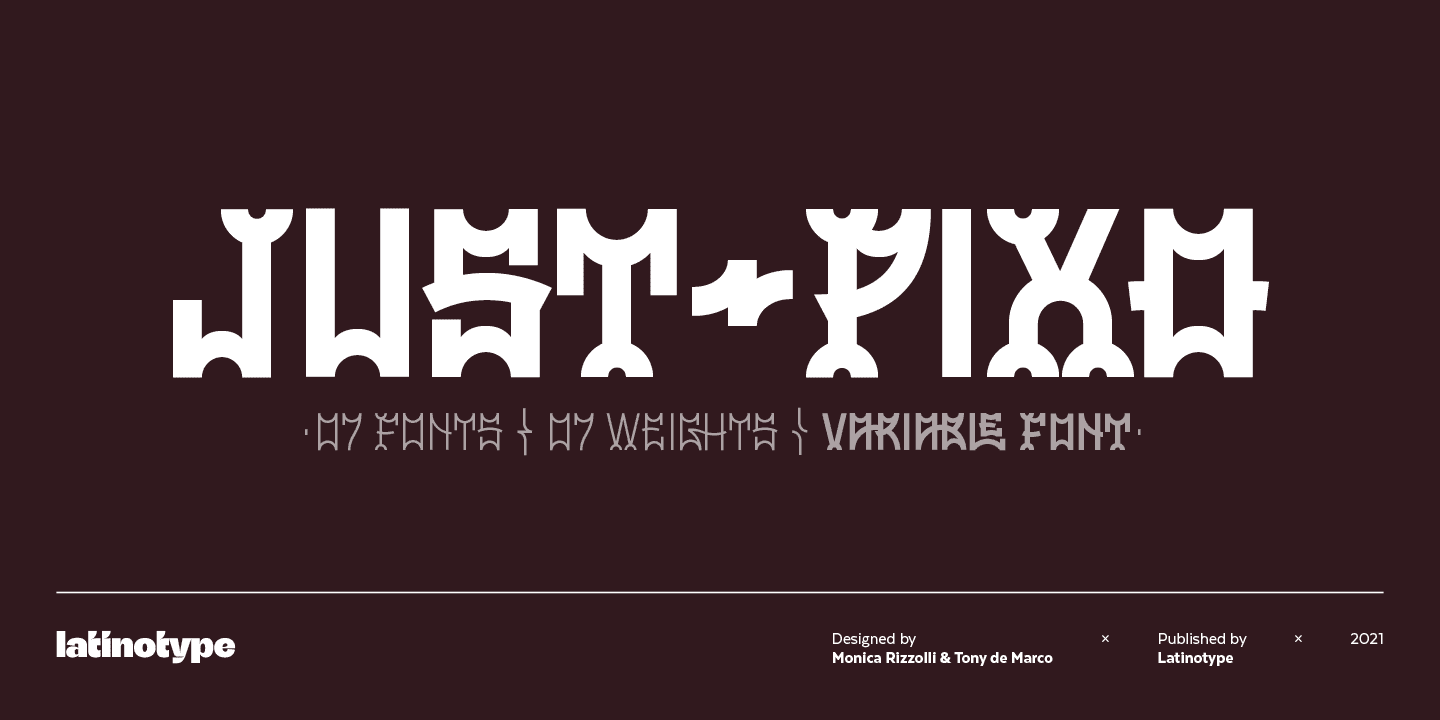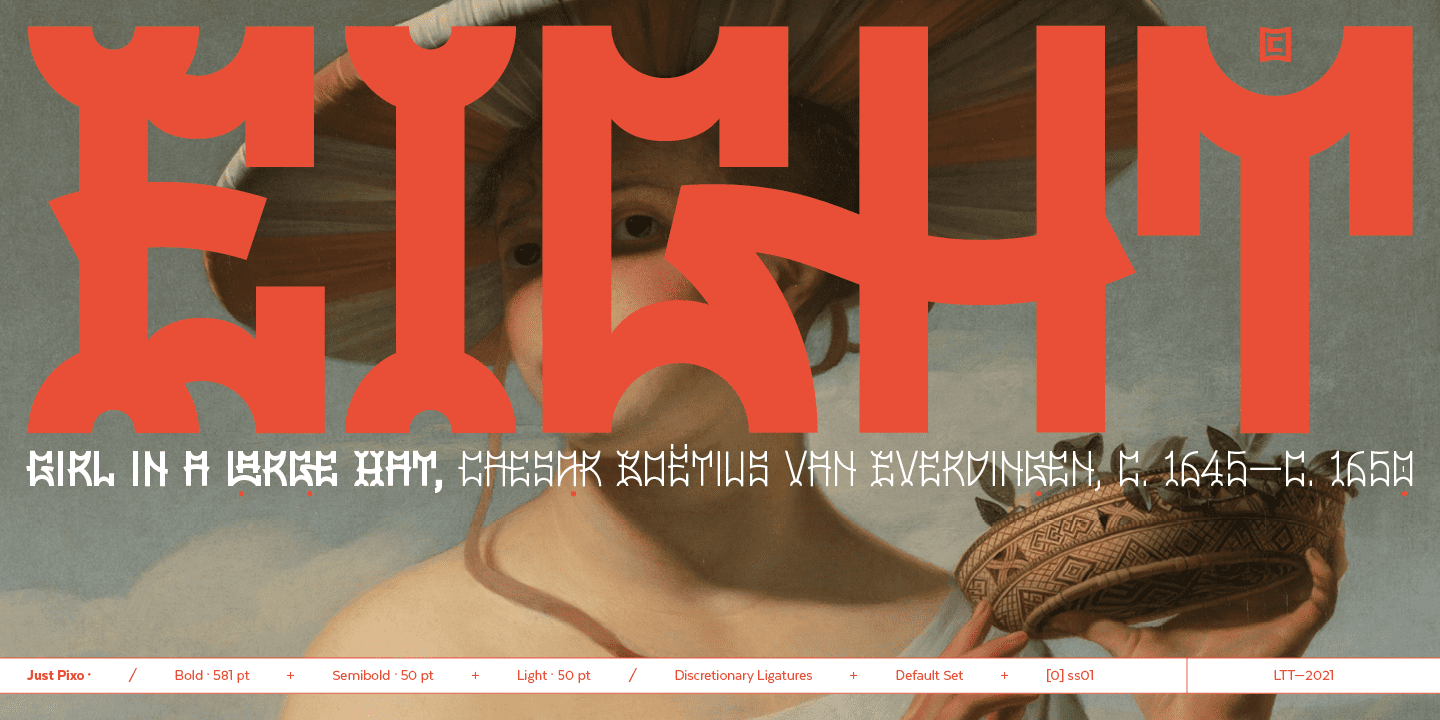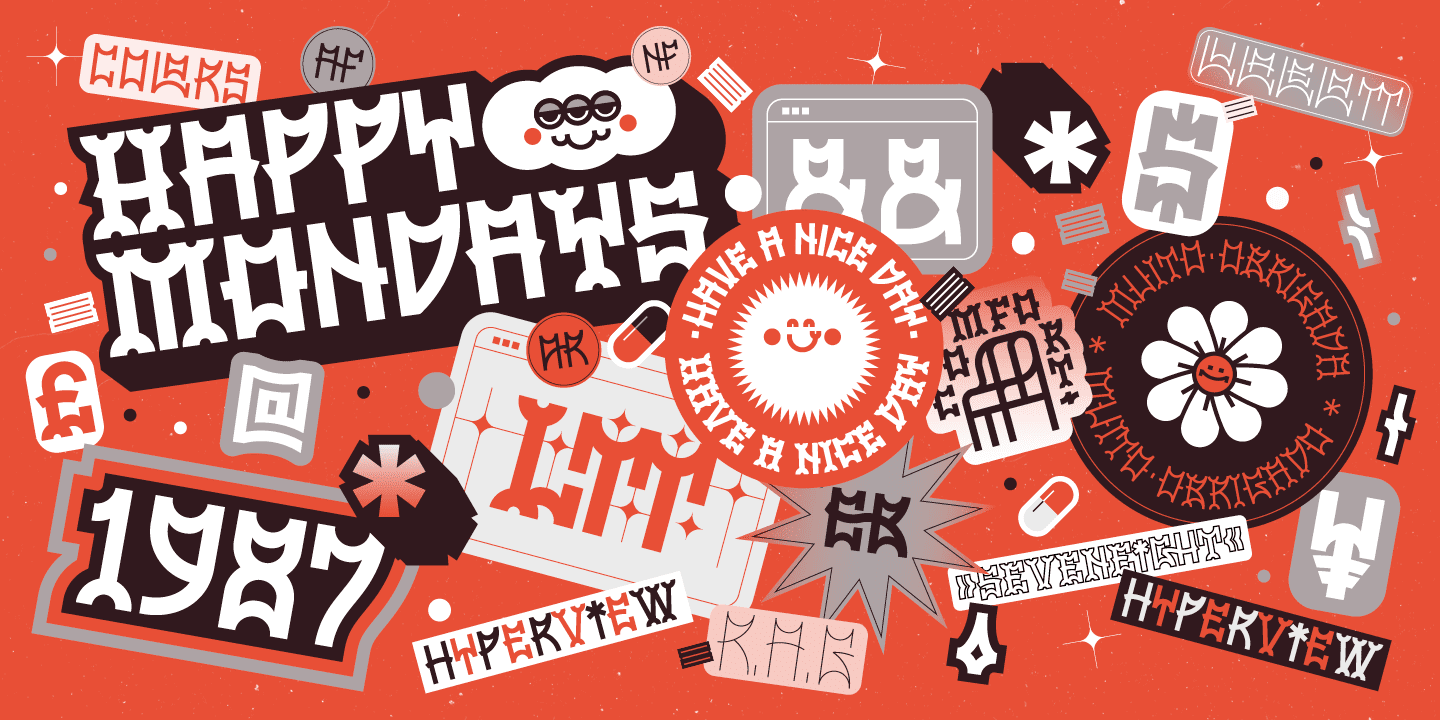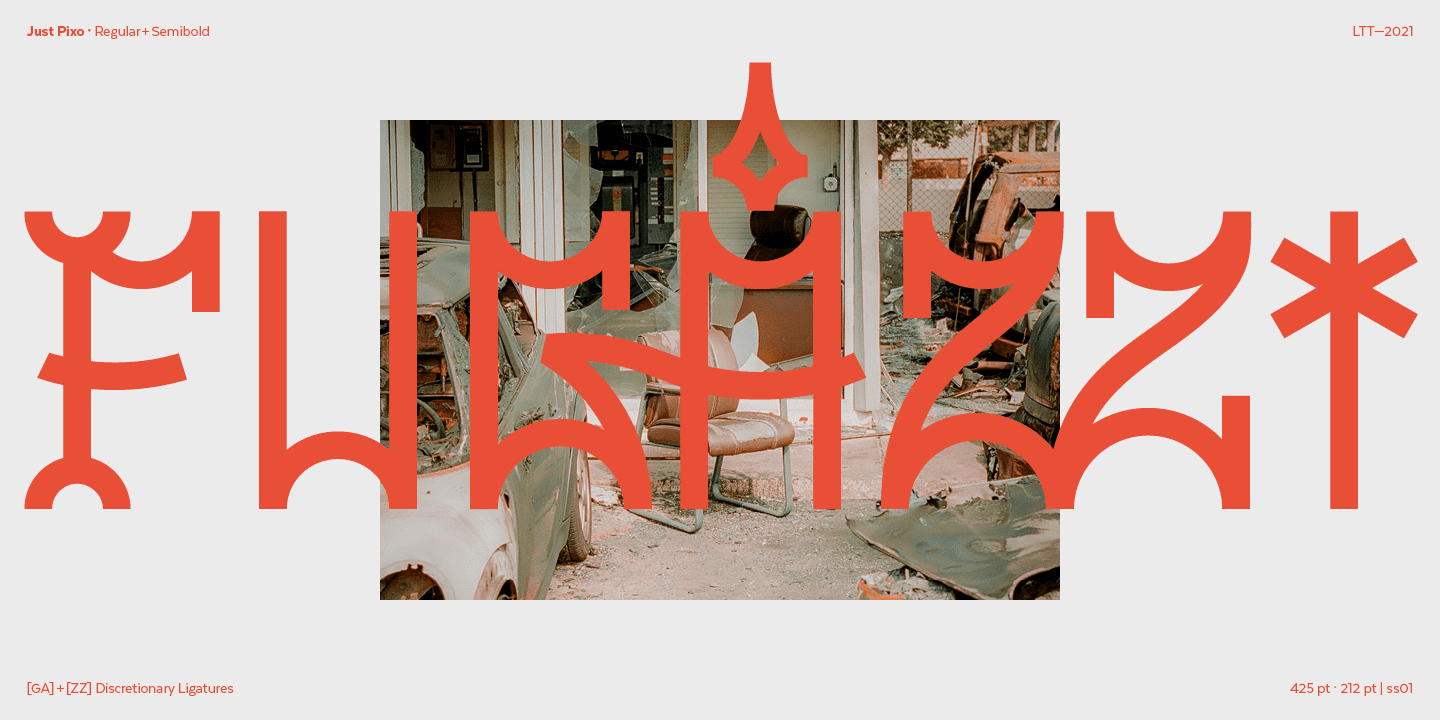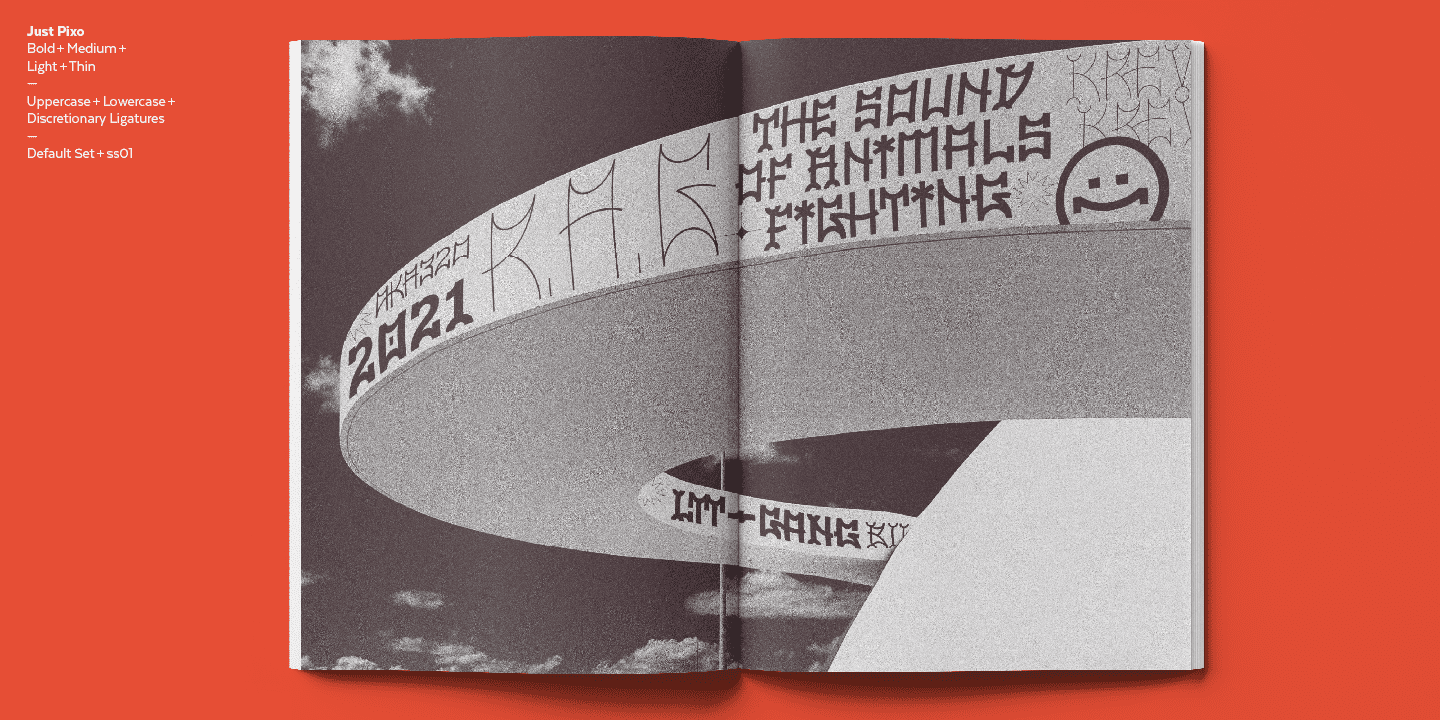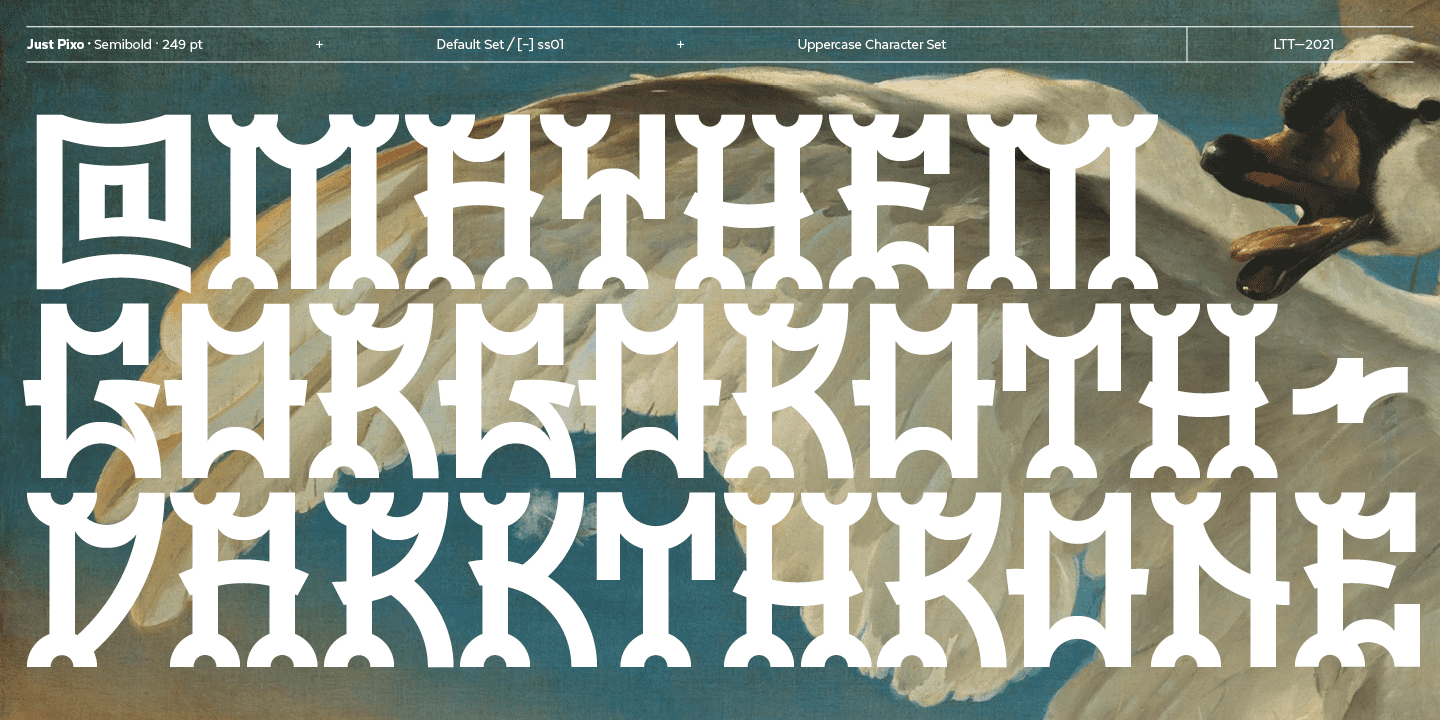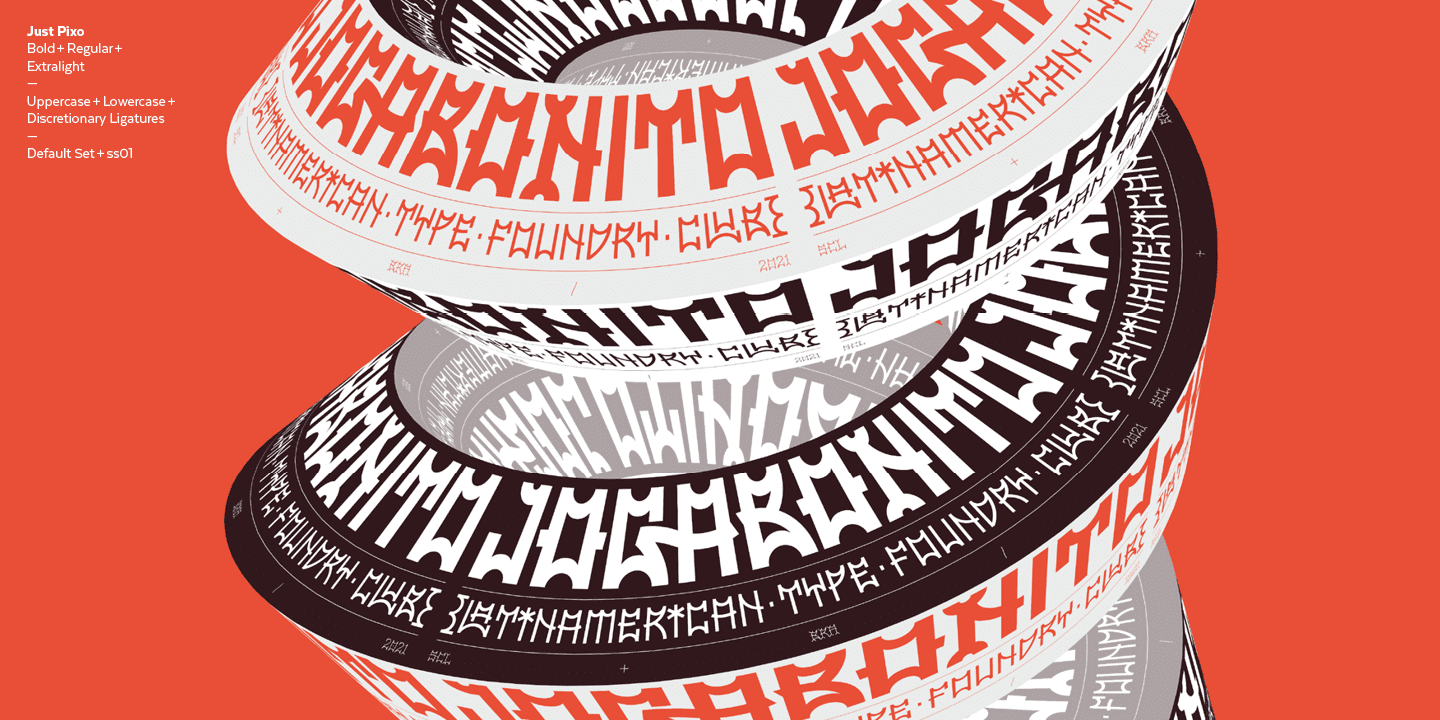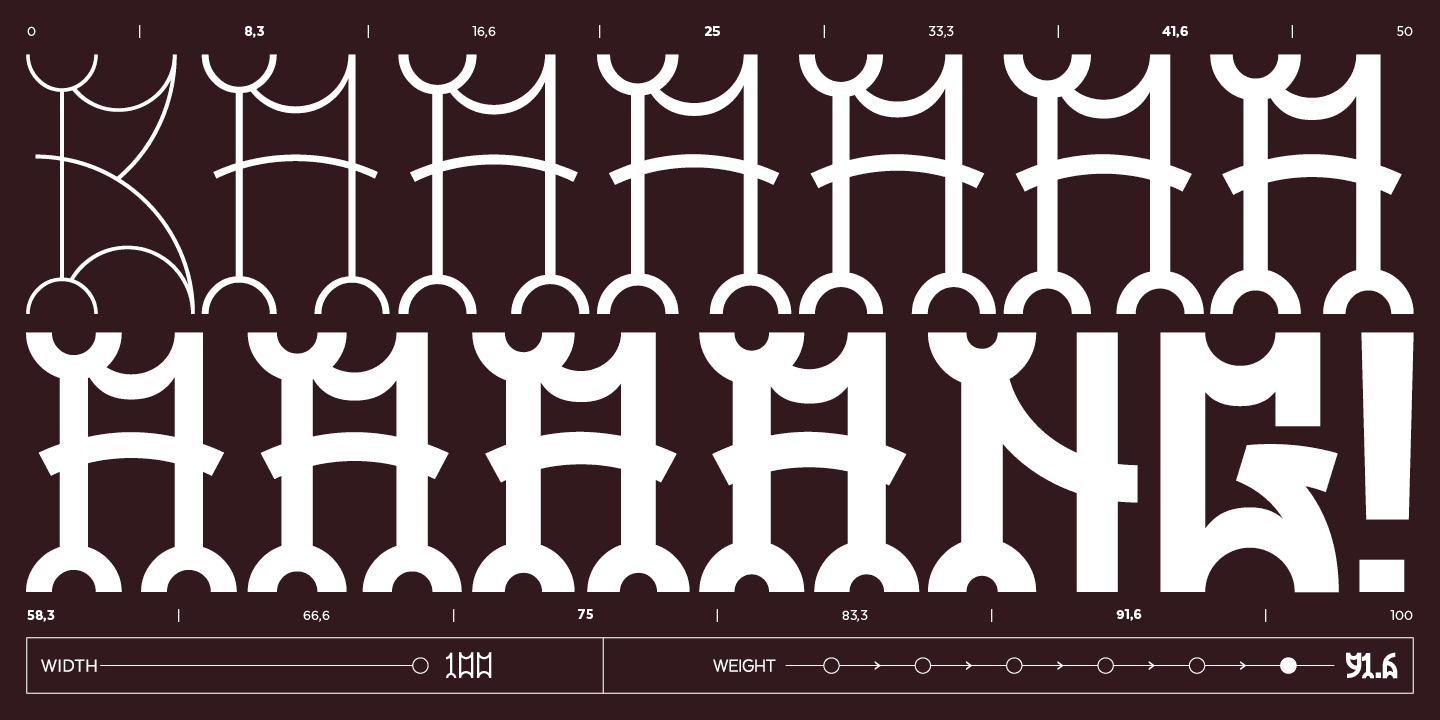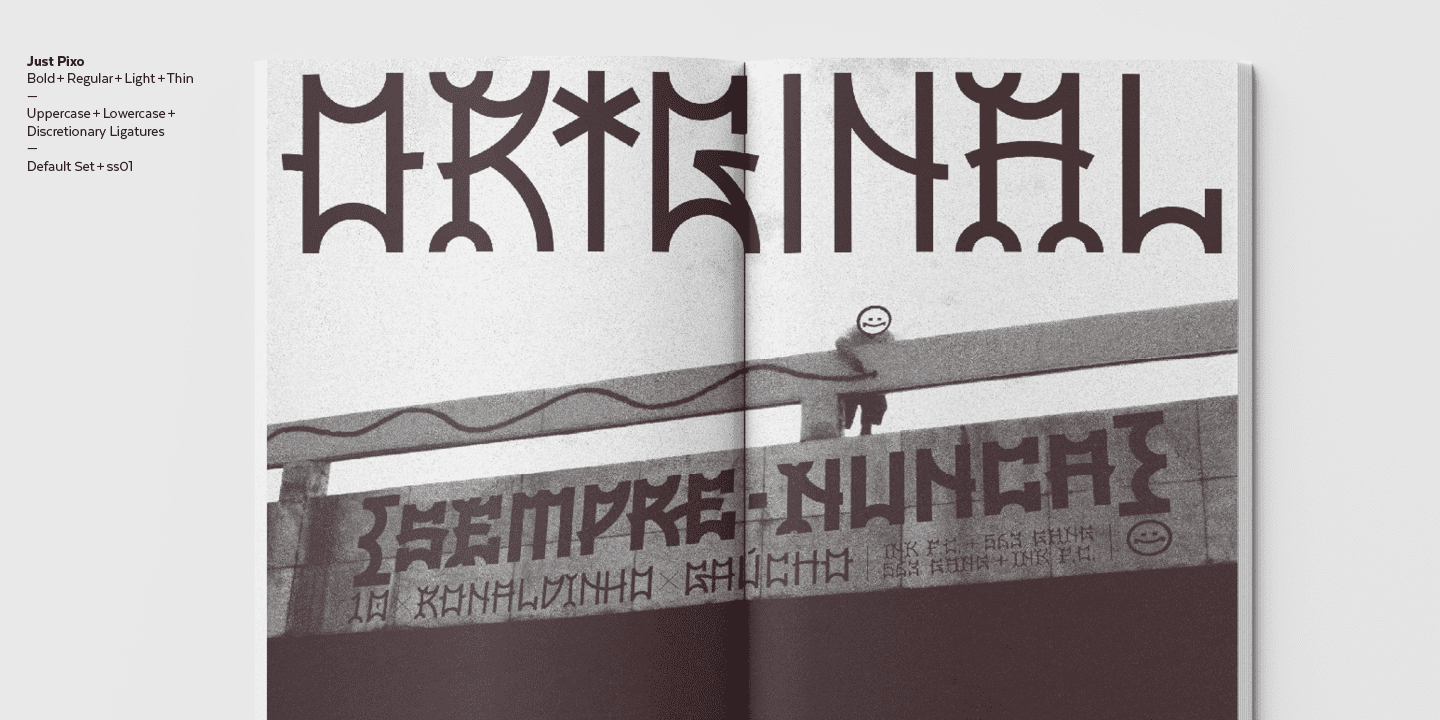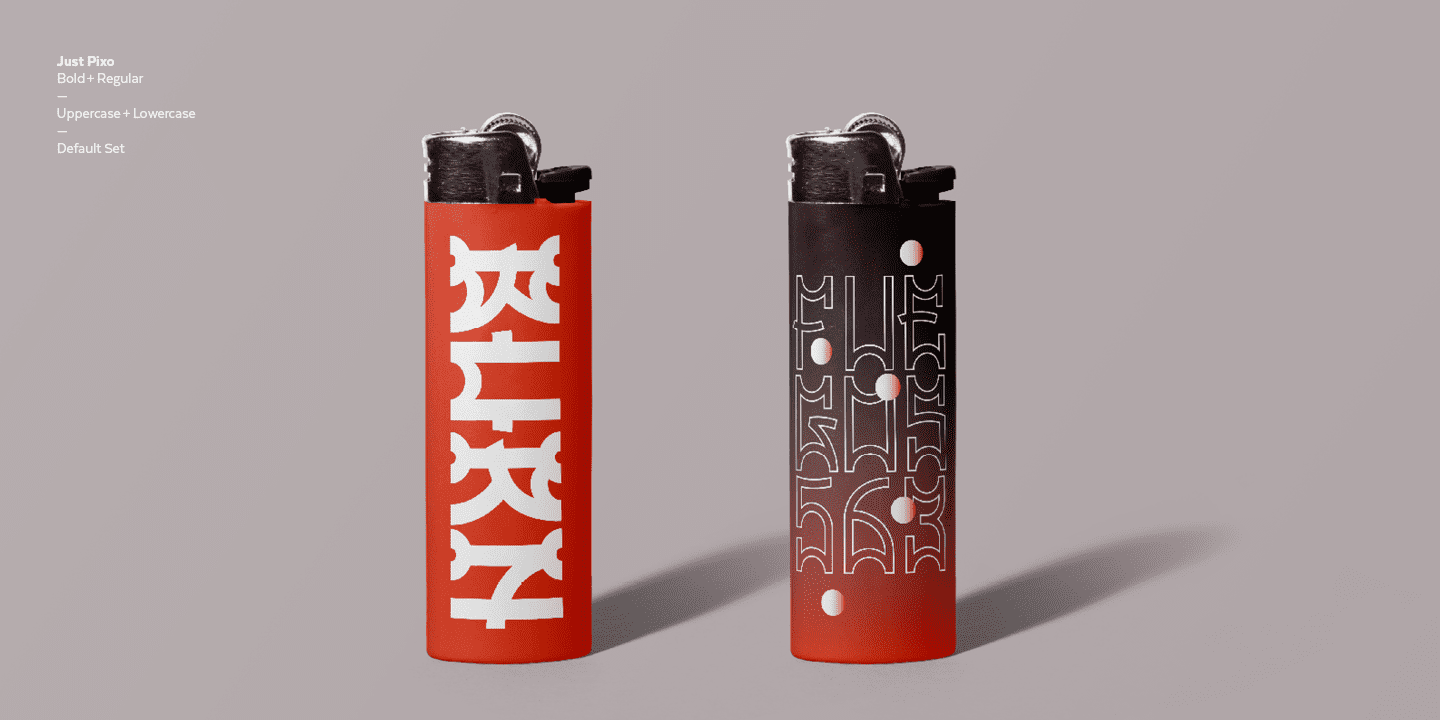
Just Pixo Family (8 fonts)
As such, we designed Just Pixo for monumental type sizes and vertical alignments—a family with seven weights, alternate glyphs, multiple ligatures and is provided as a Variable Font too. Unique decorative serif capitals and lowercase sans serif versions make Just Pixo the perfect option for large displays, strong headlines, urban logos, and contemporary concepts. Despite its controversial use on the streets, this often politically charged style will typeface will take your next project to the next level.